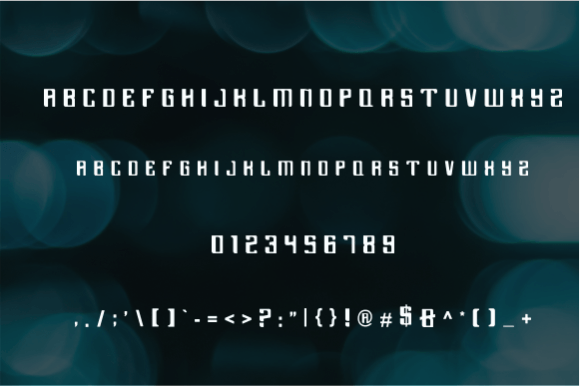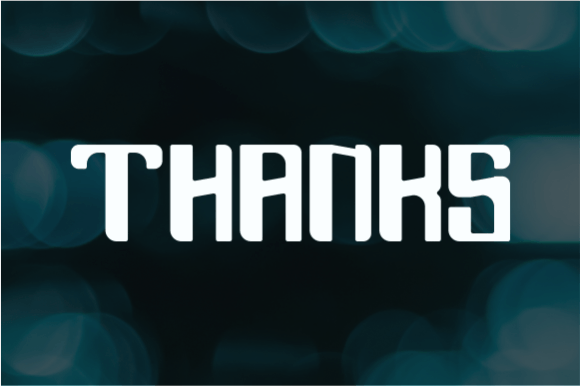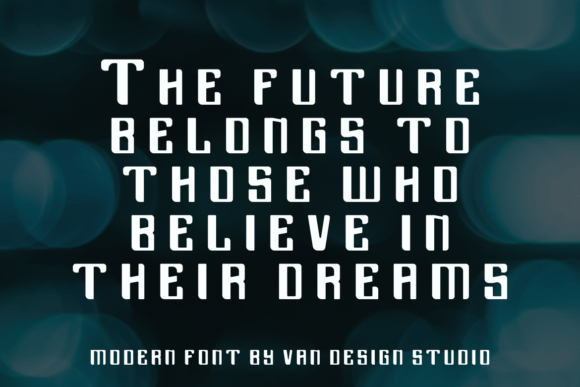
The Perfect Font for the Modern Creative
As designers, we’ve all been there – staring at a blank canvas, waiting for the perfect font to bring our vision to life. The struggle is real, but what if we told you that the solution is just a click away? Introducing ENEBA, a game-changing font that’s about to revolutionize the way we design.
With its sleek and modern design, the ENEBA Font is the perfect addition to any tech-related project. Whether you’re working on a cutting-edge startup or a futuristic concept, this display sans-serif typeface is sure to capture attention and make your content stand out. As a designer, you know that the right font can make all the difference, and with ENEBA Font, you’ll be able to create truly unforgettable designs.
Eneba Font Key Features
- Size: 10,000+ glyphs, including Latin, Cyrillic, Greek, and other languages
- Resolution: Supports high-resolution displays (Retina, 4K, etc.)
- Unique Characteristics: Eneba Font is a modern, sans-serif font with a unique blend of clean lines and subtle rounded edges, making it perfect for digital interfaces, branding, and publishing
- Language Support: Supports over 100 languages, including right-to-left languages like Arabic and Hebrew
- Font Variations: Includes a range of font weights, from Light to Black, and italic styles for added flexibility
Eneba Font Review
Overall, I think the Eneba Font is a solid addition to any designer’s toolkit. ✨ One of the things I appreciate is its versatility – it comes in a range of weights and styles, making it easy to use in a variety of projects. The font is also highly legible, which is essential for any text-based design.
Another strength of the Eneba Font is its modern feel. It’s perfect for designers who want to create a sleek, contemporary look without sacrificing readability. ✨ I also appreciate the font’s adaptability – it works well in both digital and print projects.
While the Eneba Font has many strengths, there are a few limitations to be aware of. ⚠️ For one, the font may not be as unique or distinctive as some other options on the market. Additionally, the font’s character set may not be as extensive as some other fonts, which could be a drawback for designers working on projects that require a wide range of characters.
In conclusion, I think the Eneba Font is a reliable choice for designers who need a versatile, legible font. While it may not be the most unique or distinctive option, it’s a solid addition to any toolkit. ✨ Overall, I’d give the Eneba Font 4 out of 5 stars.
- Range of weights and styles
- Highly legible
- Modern feel
- Adaptable for digital and print projects
Eneba Font Practical Application Guide
Tips for Getting the Most Out of Eneba Font
Use the Eneba Font in combination with other design elements, such as images and graphics, to create visually appealing designs.
Experiment with different font sizes, styles, and colors to find the perfect combination for your project.
Use the Eneba Font to create a consistent brand identity across all your marketing materials.
The Eneba Font is perfect for:
- Creating eye-catching headings and titles
- Designing professional-looking presentations and documents
- Developing a consistent brand identity
- Adding a touch of elegance to your designs
Alternatives to Eneba Font for Designers
Montserrat is a sans-serif typeface designed by Julieta Ulanovsky. It’s perfect for use in digital products, particularly in headings and titles. Montserrat is similar to Eneba Font in its modern and clean design, but it has a more geometric feel and is available in a wider range of weights.
Open Sans is a popular sans-serif typeface designed by Steve Matteson. It’s suitable for use in body text and is known for its high readability. Open Sans is more rounded and friendly compared to Eneba Font, making it ideal for use in applications where a more approachable tone is desired.